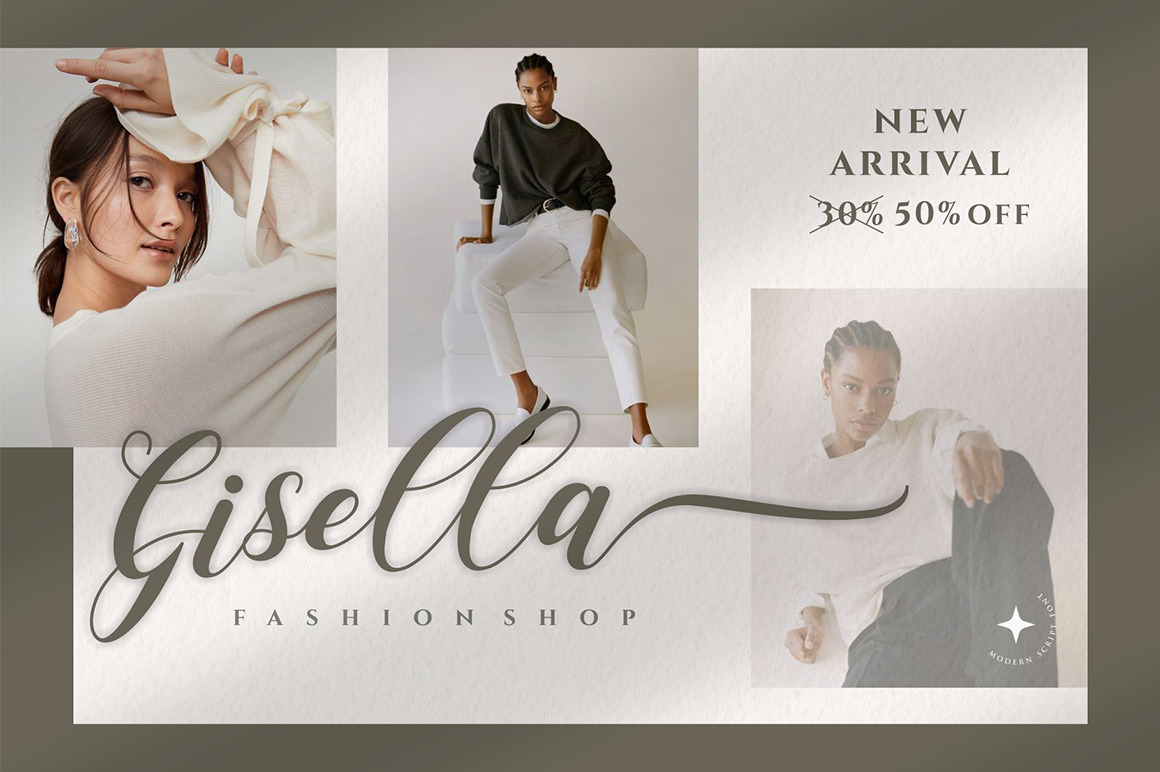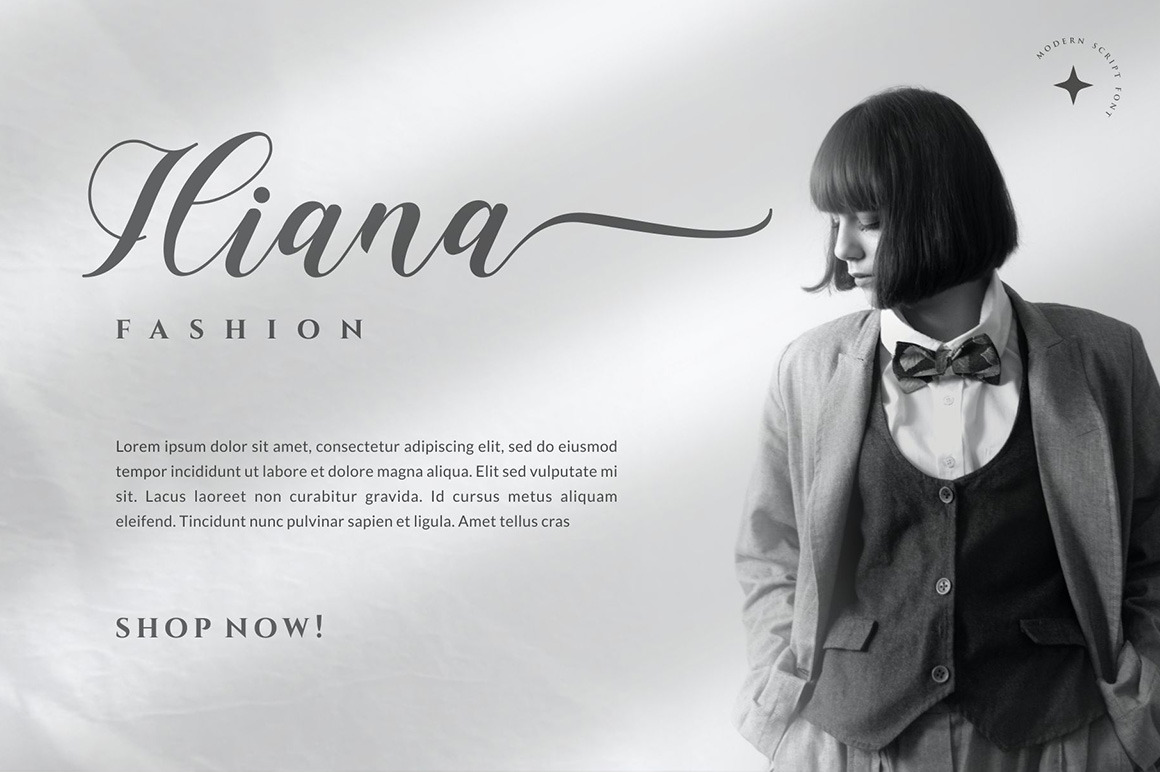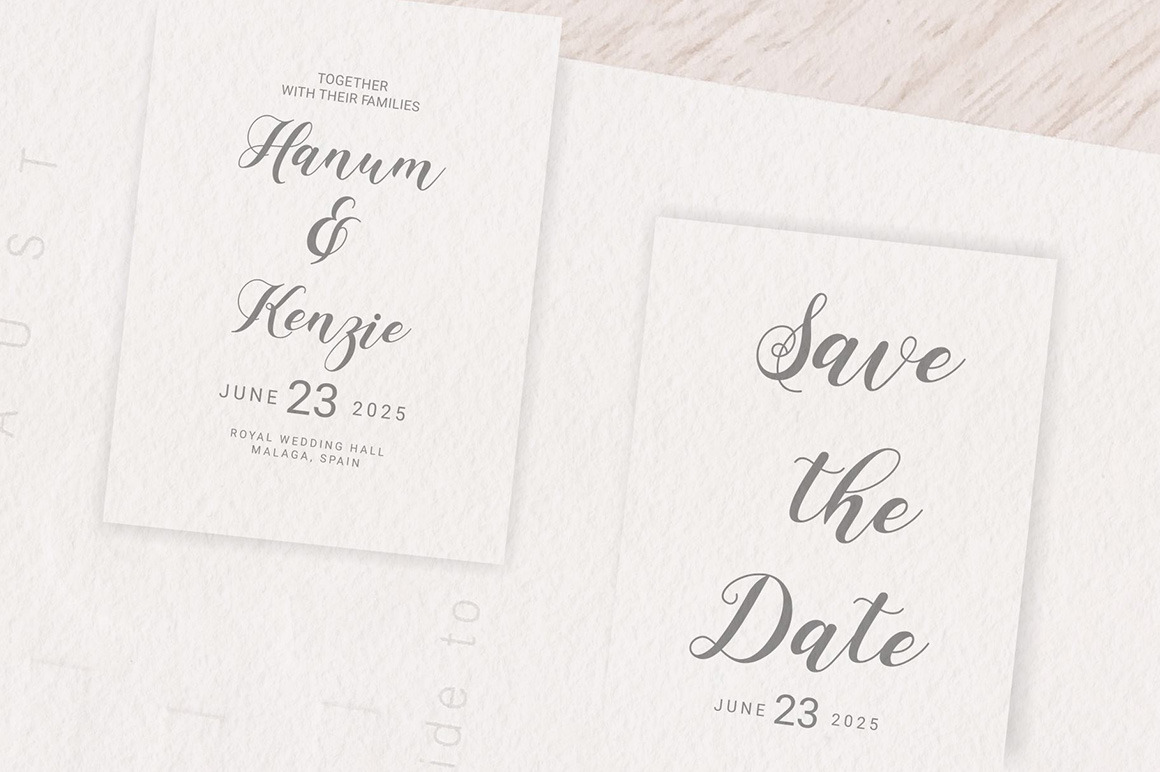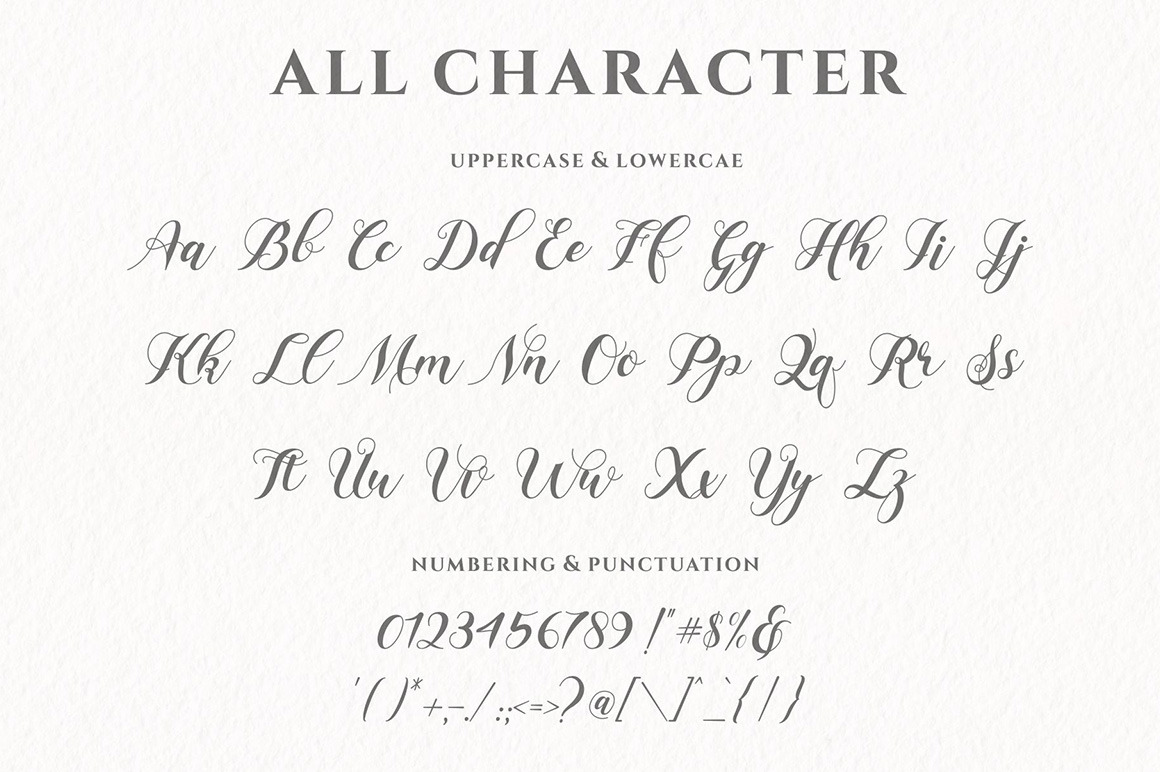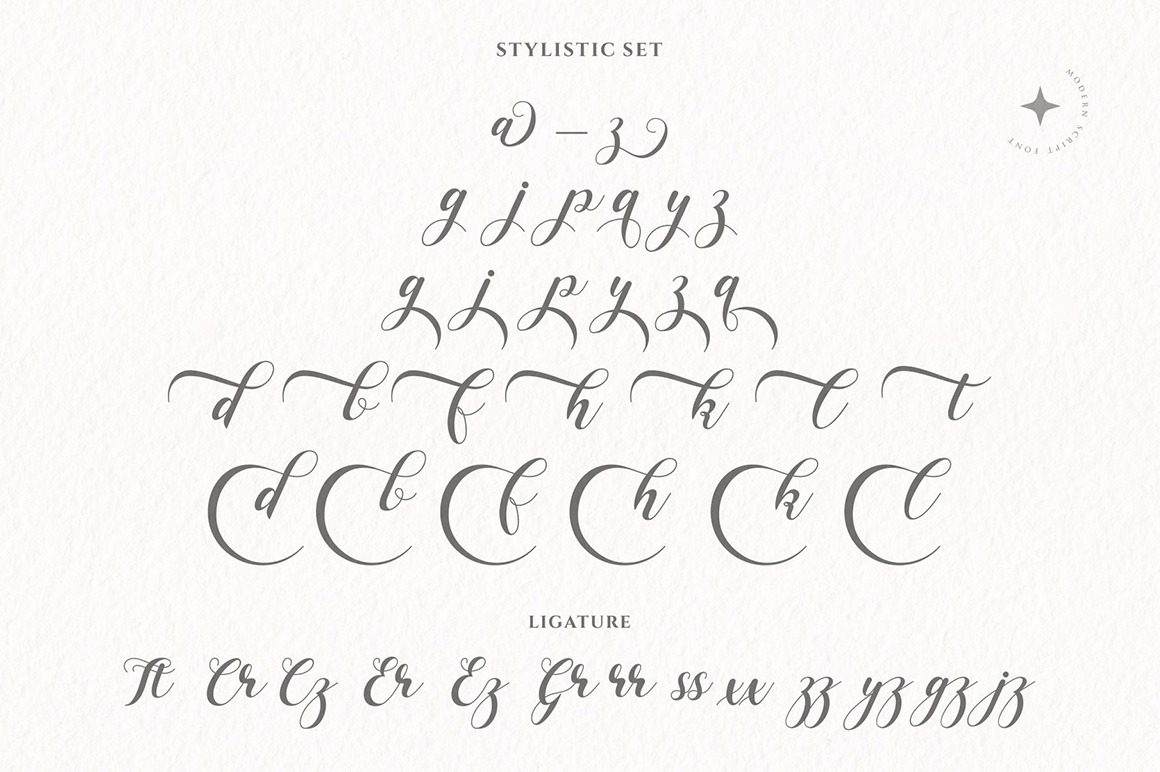
Madalyn - Calligraphy Script Font
Introducing Madalyn - Calligraphy Script Font
Madalyn is a smooth, elegant and stylish handwritten font. It has a beautiful and balanced character and as a result, fits perfectly into any card, invitation or wedding decoration design. as well as various other designs such as company logos, business cards, book titles, brand names, and others.
Ligature
Uppercase and lowercase
Numbering and Punctuation